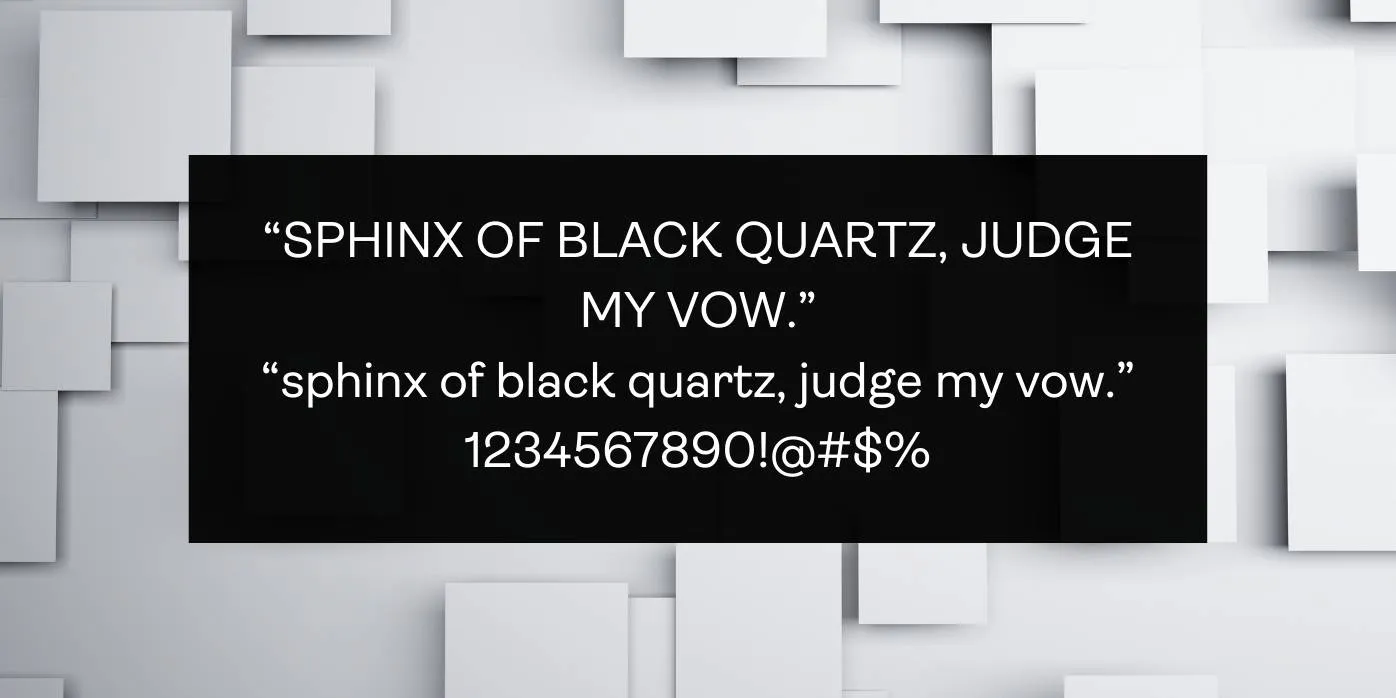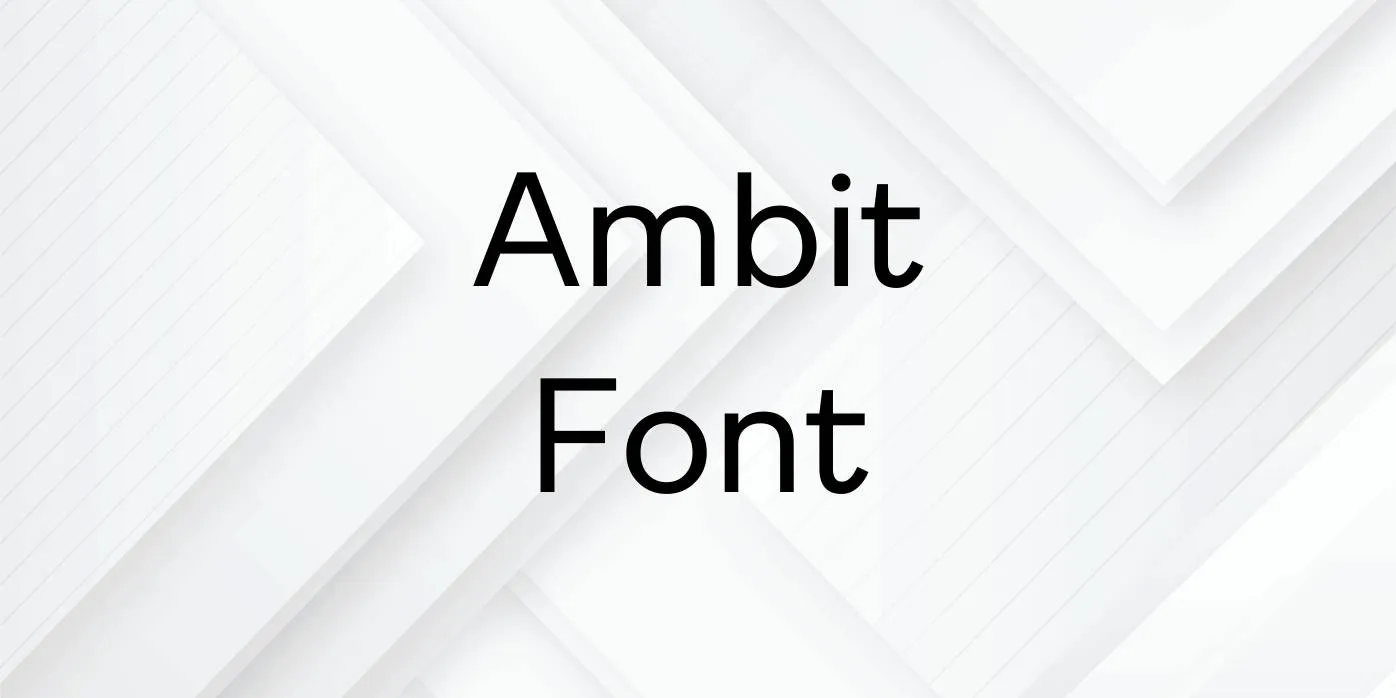
Ambit Font
Ambit Font is a marvelous typeface developed by Cotypefoundry. It is a sans serif typeface.  This stunning font has been used by various notable publications, such as The New York Times, Wired, and Forbes. This stylish font is perfect for both display and body text. It is highly readable and legible, making it ideal for long paragraphs of text.
The Ambit Font’s versatility makes it perfect for a wide range of applications, from website design to print design. The copy and paste function of this typeface is suitable for various designs. You can also use fox sans font which is closest to this font family. If you’re looking for a sans serif typeface that is both stylish and legible, then this amazing font is the perfect choice for you.
Its styles range from light to bold, and it also includes italic and small caps styles. The Ambit Font is available in both regular and condensed widths. You can also utilize its text generator tool.